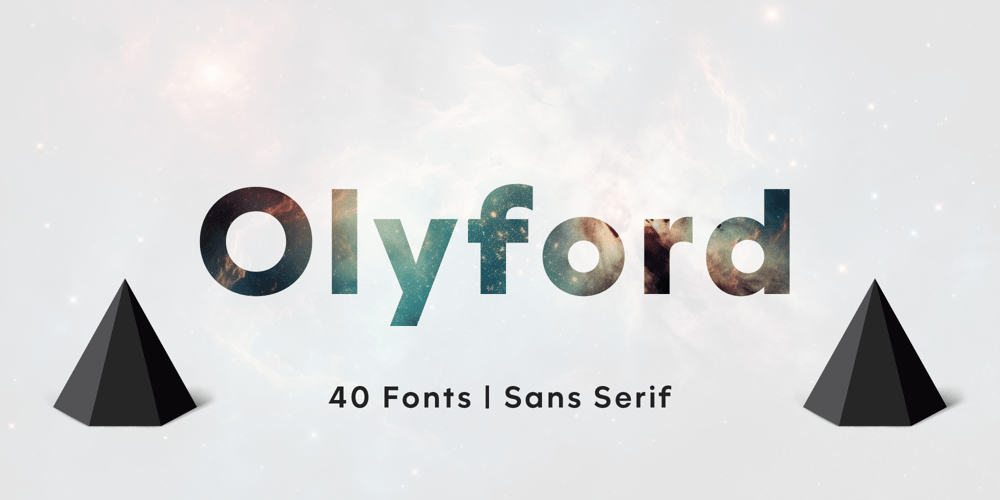
Olyford
Olyford font
Olyford Font Family was designed by Nikolay Savchuk and published by NicolassFonts. Olyford contains 40 styles and family package options. The Complete Family offers 40 fonts, comprising Olyford (20 fonts) and Olyford Alt (20 fonts), the latter featuring alternate designs for G, I, and a.OpenType features: Access All Alternates, Stylistic Alternates (Alternative n, m, p, q, r, u), Stylistic Set 1 (Alternative K, k), Stylistic Set 2 (Alternative W), Stylistic Set 3 (Alternative t), Stylistic Set 4 (Alternative w), Stylistic Set 5 (Alternative Ø, ø), Stylistic Set 6 (Alternative 5), Stylistic Set 7 (Alternative ¢, $, €, ¥), Stylistic Set 8 (Alternative Đ, Ħ, Ð, ≠, ∫), Standard Ligatures, Discretionary Ligatures, Proportional Figures, Tabular Figures, Case-Sensitive Forms, Fractions, Kerning, Denominators, Numerators, Scientific Inferiors, Subscript, Superscript, Ordinals, Localized Forms, Contextual Alternates, Capital Spacing.Olyford family is ideally suited for signage, packaging, brand identity, software, editorial design, as well as web and screen design.